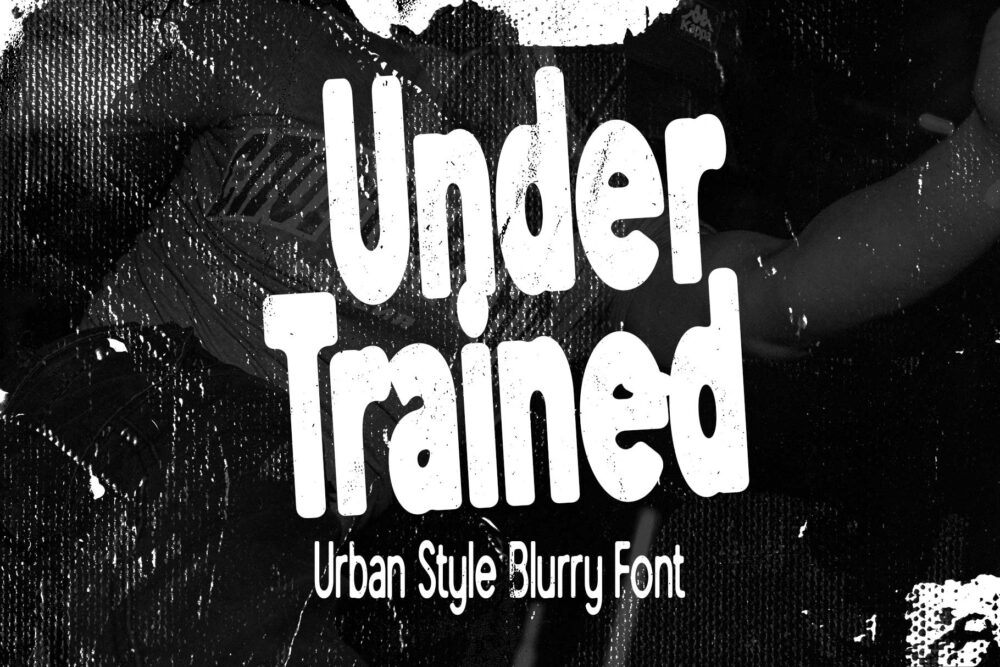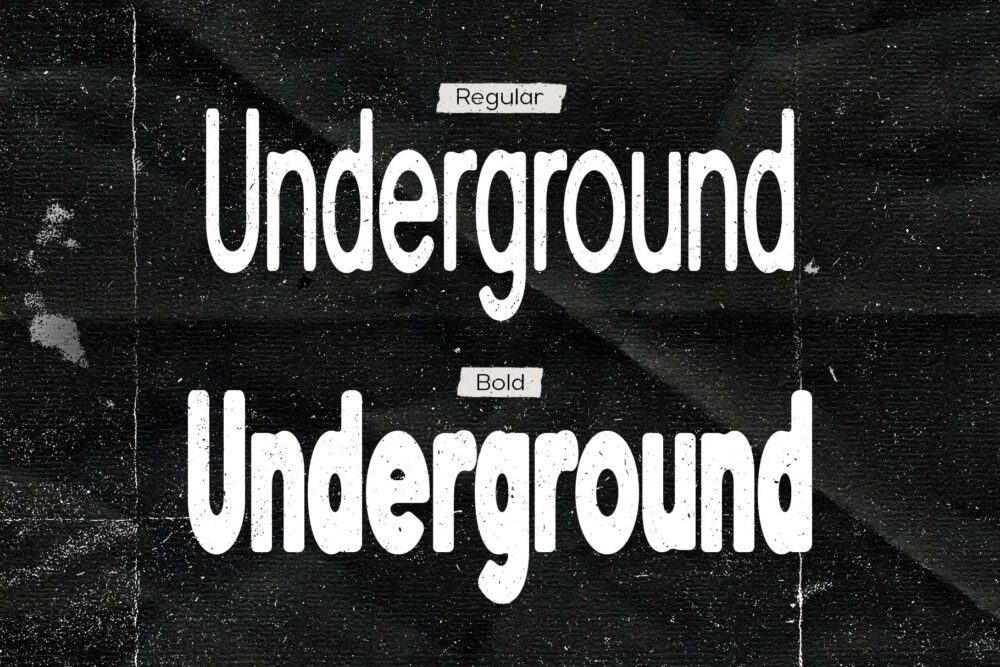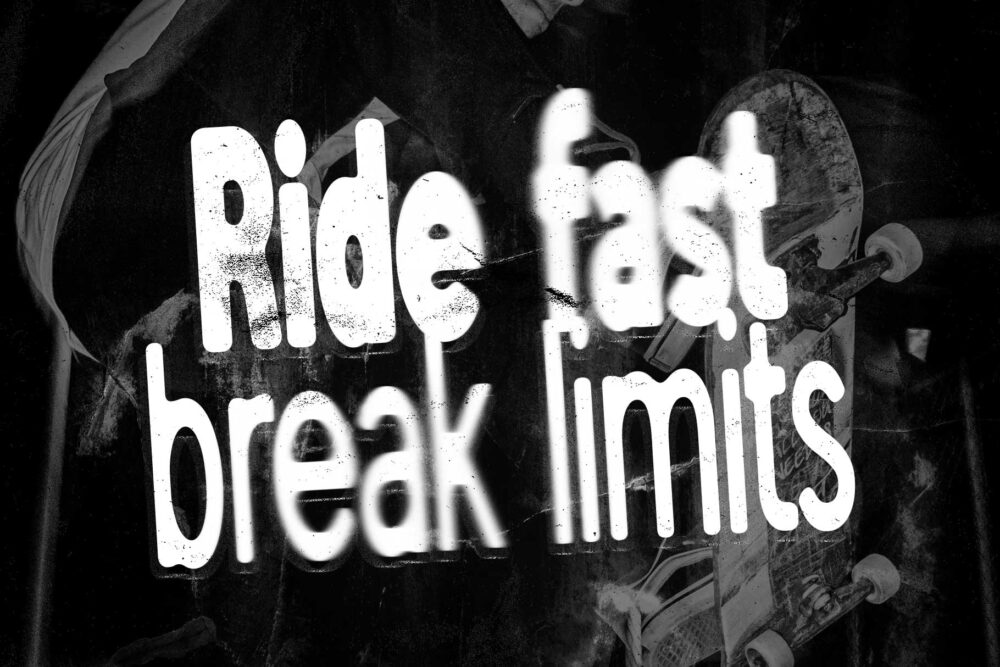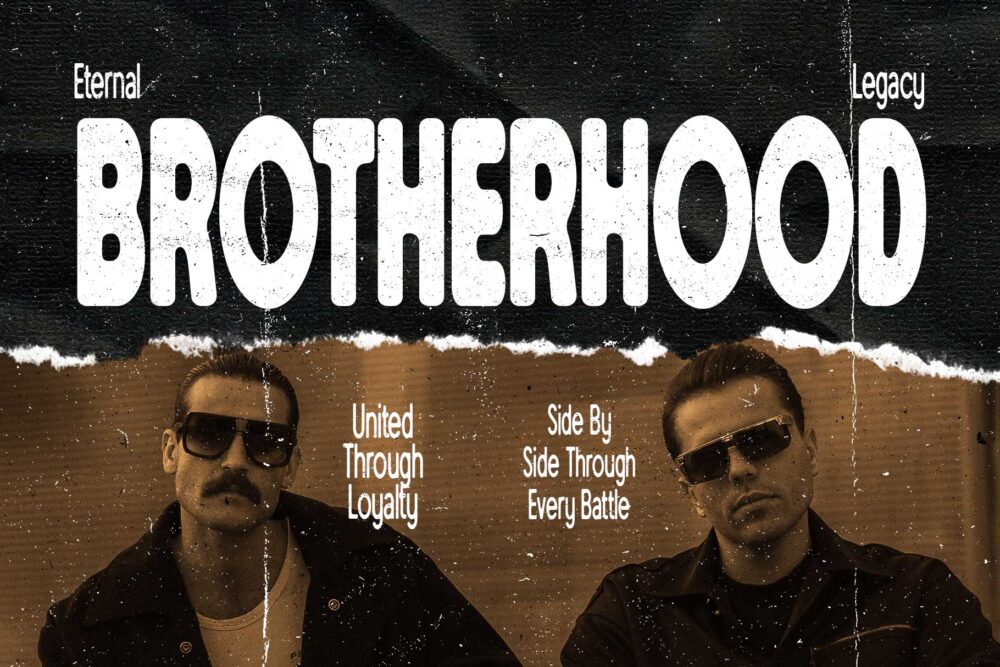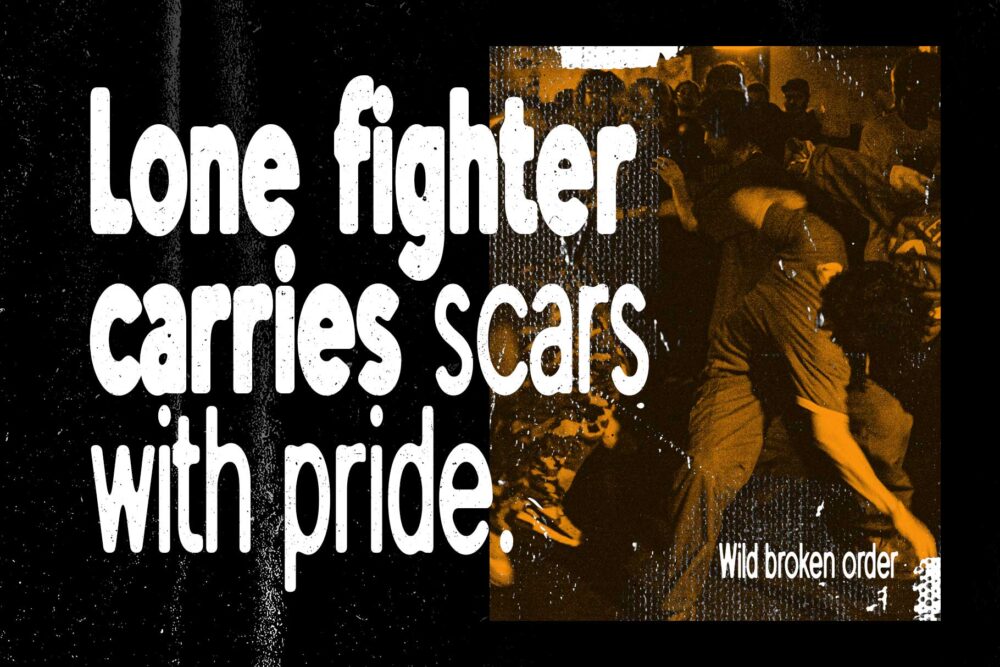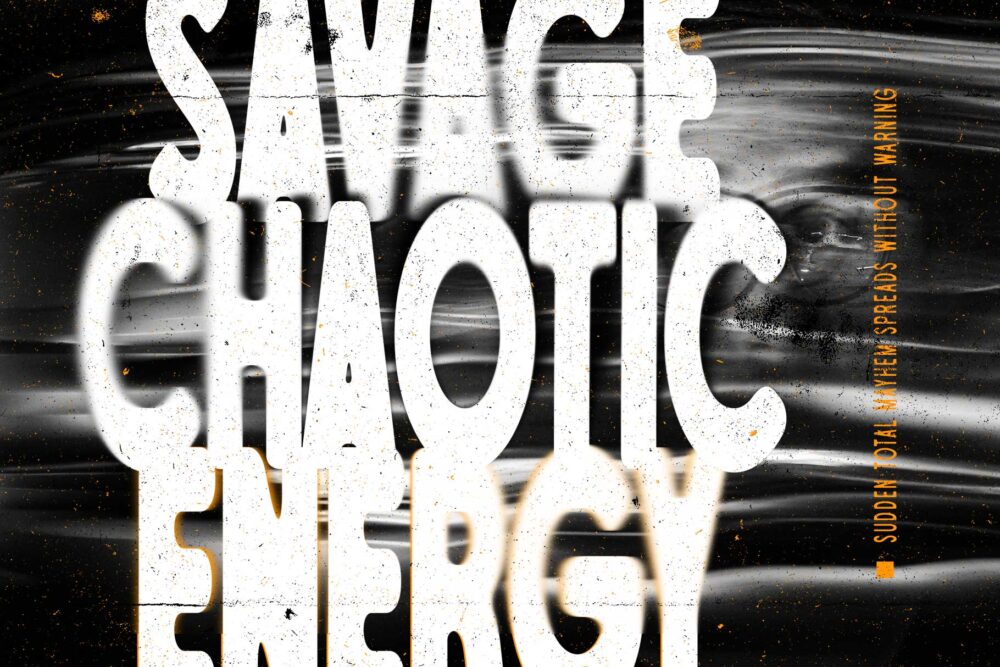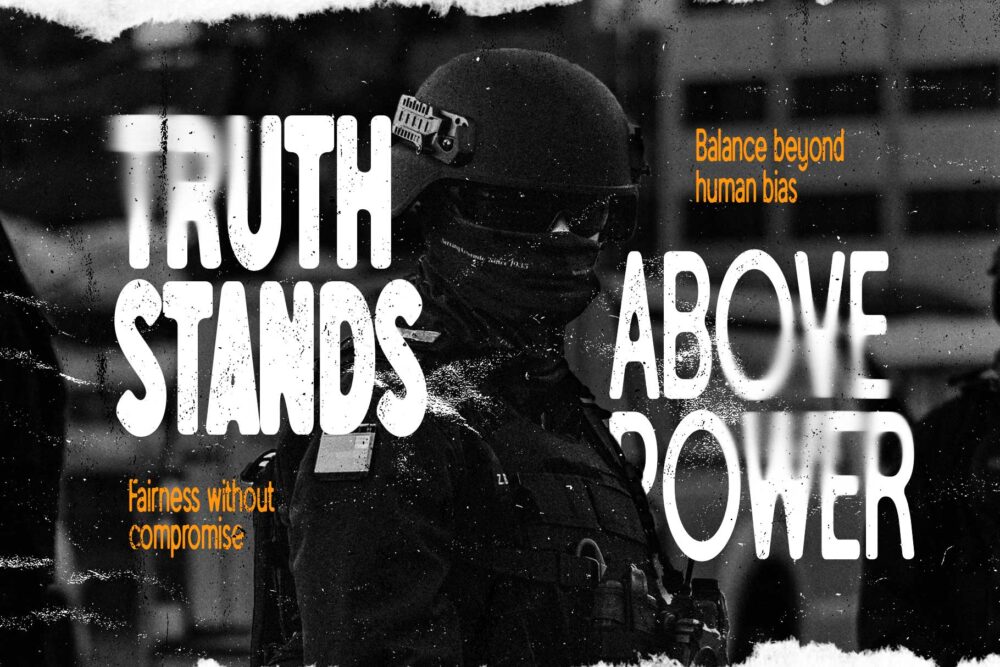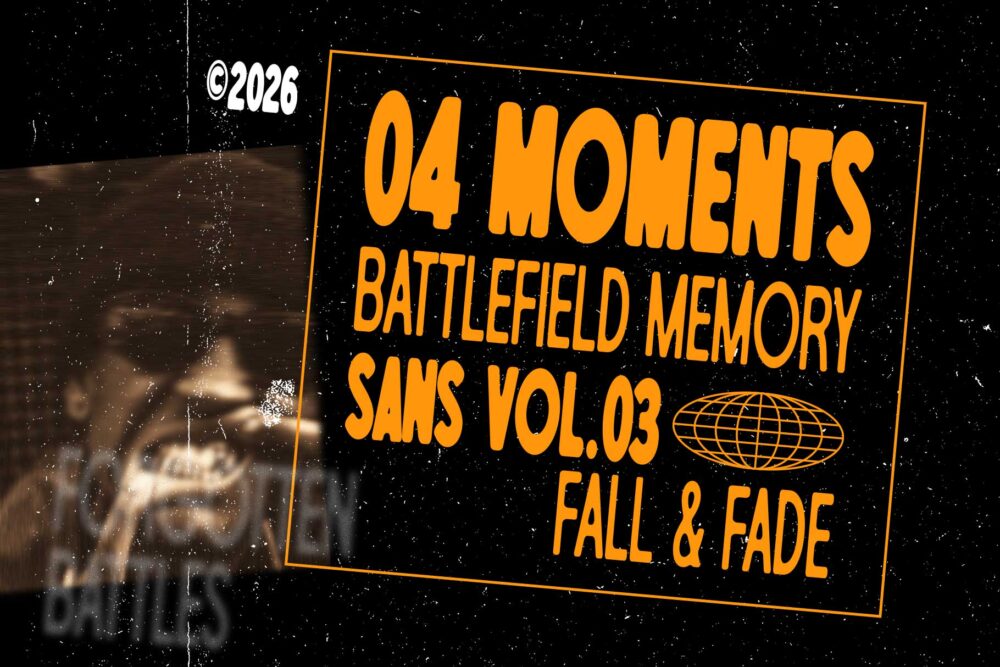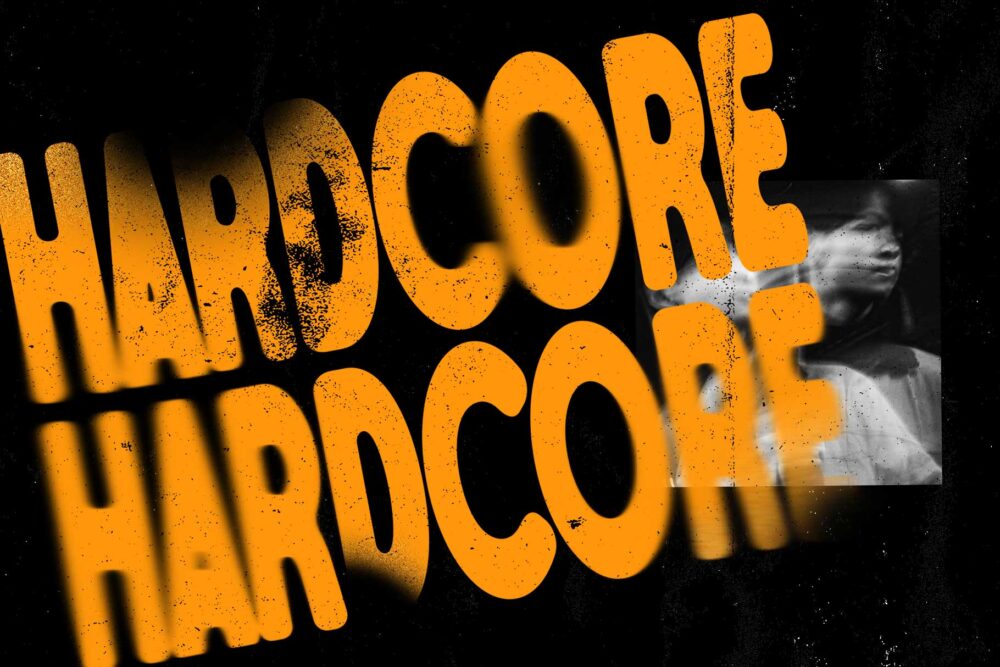
Under Trained urban blurry sans serif font poster preview
Under Trained regular and bold blurry display font showcase
Distorted blurry typography font for underground poster design
Urban streetwear font with grunge blurry effect
Experimental sans serif font with hazy motion blur aesthetic
Condensed blurry display font and editorial projects
Gritty urban typography with distressed blurry texture
Modern blurry font for chaotic street culture branding
Bold distorted sans serif font with underground visual style
Blurry streetwear typography font with photocopy texture effect
Under Trained display font character set and multilingual support
Urban blurry sans serif font for posters, album covers, and branding
Under Trained is a bold urban display sans serif with a raw blurry aesthetic inspired by underground culture, distorted posters, and chaotic street visuals. The combination of tall condensed shapes and textured blur effects creates a loud, gritty, and modern appearance. Available in Regular and Bold styles, this font is made to stand out in strong visual compositions.
Designed for expressive and experimental projects, Under Trained works perfectly for streetwear branding, fashion posters, editorial layouts, social media graphics, and urban campaign designs. The blurry effect adds a hazy motion feel while still keeping the typography readable and impactful.
Whether you are creating brutalist posters, Y2K-inspired visuals, or distressed modern typography, Under Trained delivers an energetic underground vibe with bold visual character.
• Uppercase
• Lowercase
• Numbers & Symbols
• Punctuation
• Multilingual support
Under Trained – Urban Blurry Sans Serif Font